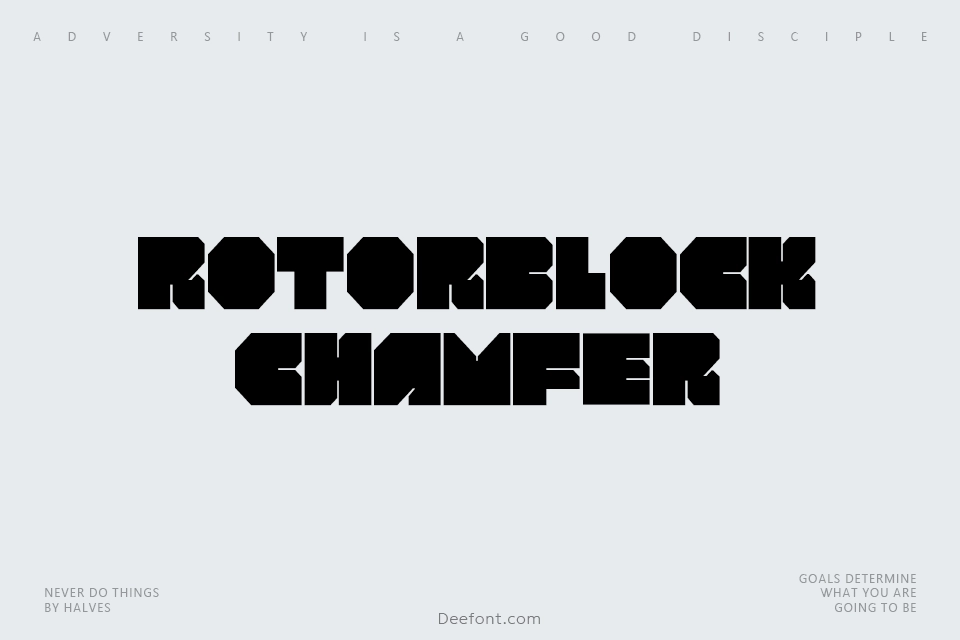
RotorBlock Chamfer Font
RotorBlock Chamfer is a bold, geometric sans-serif typeface featuring chunky, uppercase letters with a subtle chamfered quality that creates an almost three-dimensional effect. Its strong, blocky design delivers a powerful visual impact, evoking strength, solidity, and industrial aesthetics. Originally inspired by Amiga 500 demo scene aesthetics, this display font commands attention through its modular geometric structure and sharp edges, making it ideal for bold typographic statements and contemporary design projects.